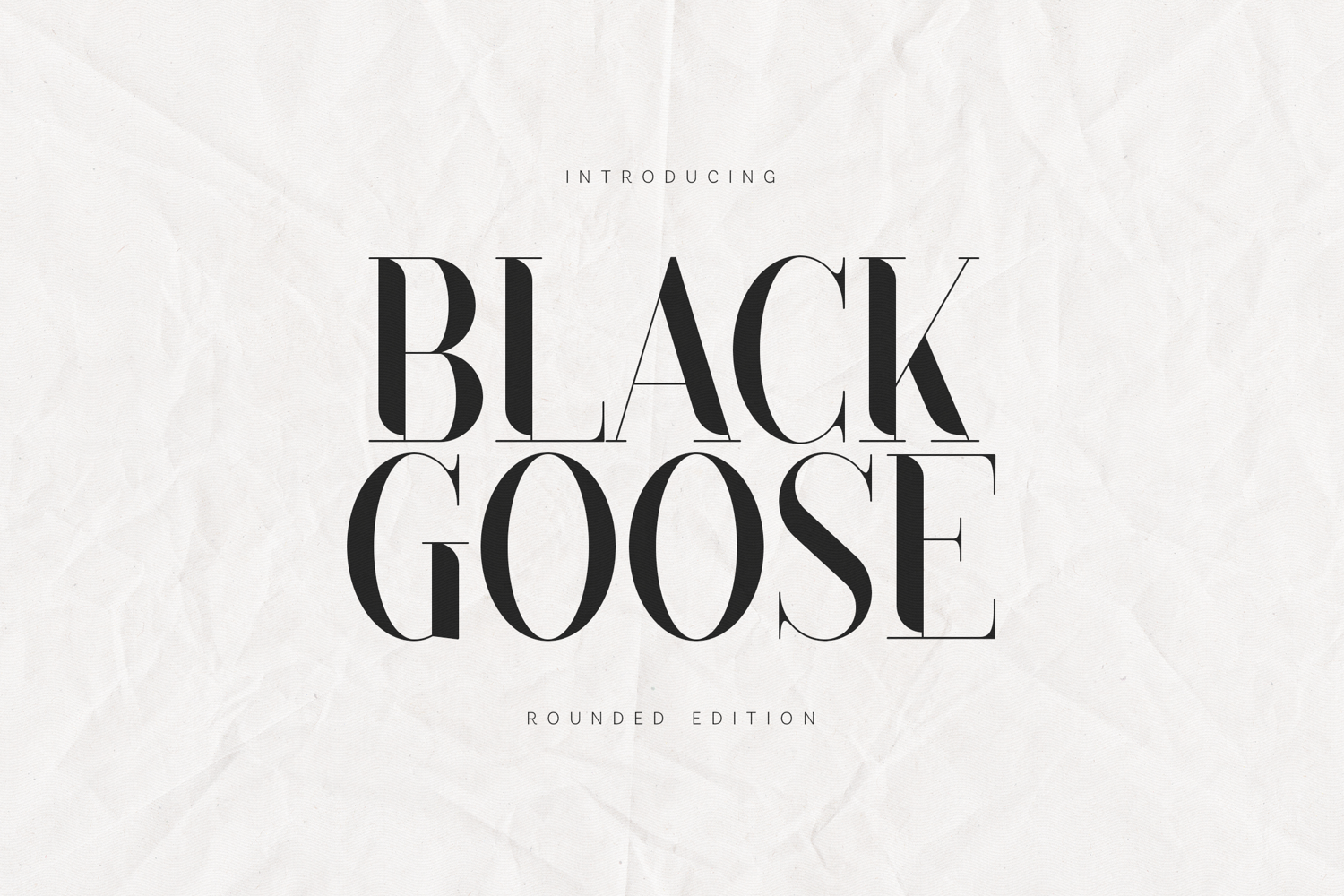
Black Goose Rounded Serif Font
Black Goose Rounded Edition is a refined serif font that blends classic elegance with soft, rounded details. Designed for high-contrast typography, it delivers a luxurious yet approachable feel, making it ideal for editorial design, branding, fashion layouts, logos, posters, and premium typography projects.
The rounded terminals add warmth to the sharp serif structure, creating a balanced and modern aesthetic. Black Goose Rounded Edition includes uppercase and lowercase letters, numerals, punctuation, and extensive multilingual support, ensuring flexibility across print and digital applications. Supplied in OTF format, ready for professional use.